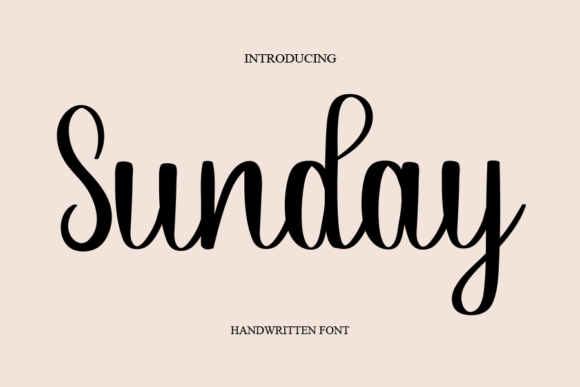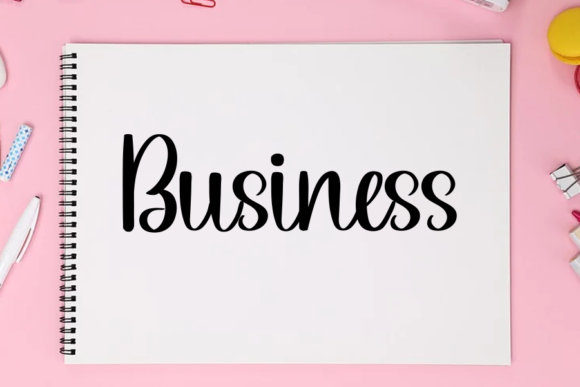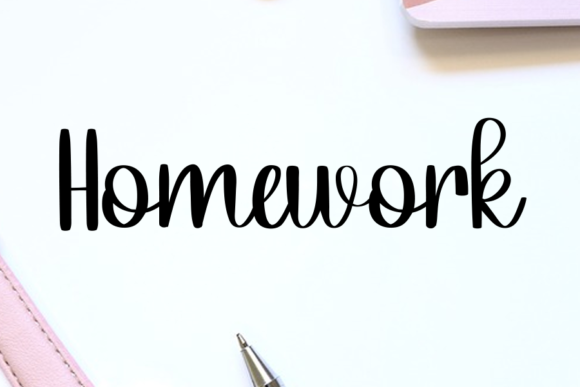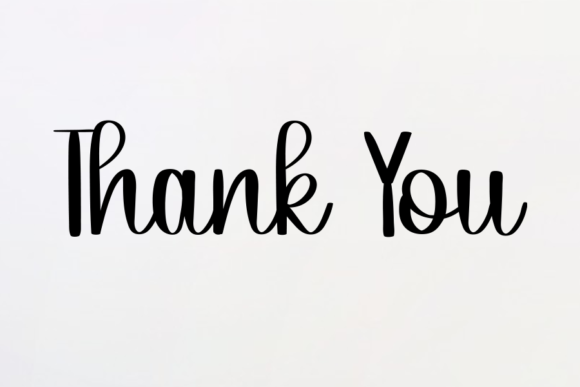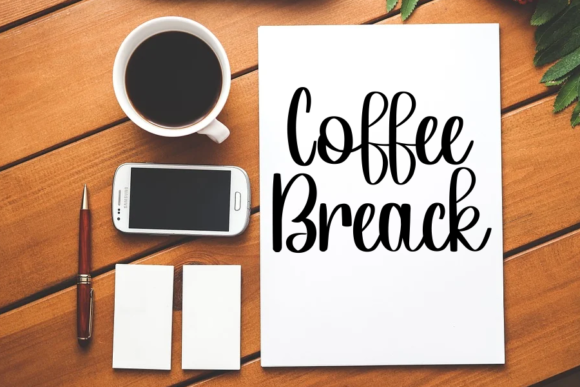
Sunday Font
About Sunday Font
Sunday is a delicate handwritten font that has a modern yet whimsical style. It will undoubtedly immerse your designs into a magical world.